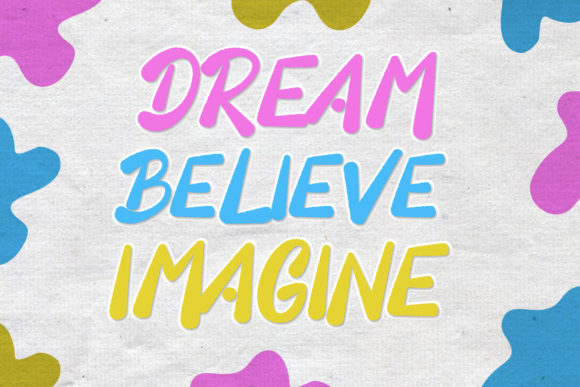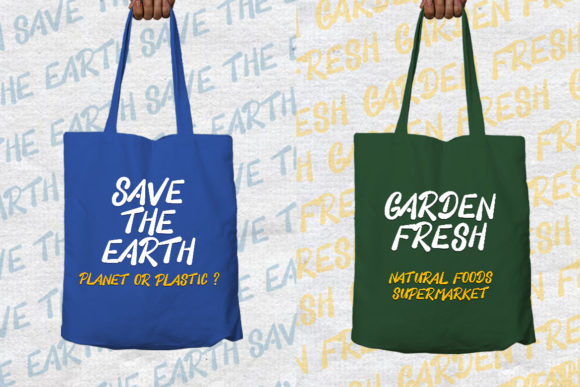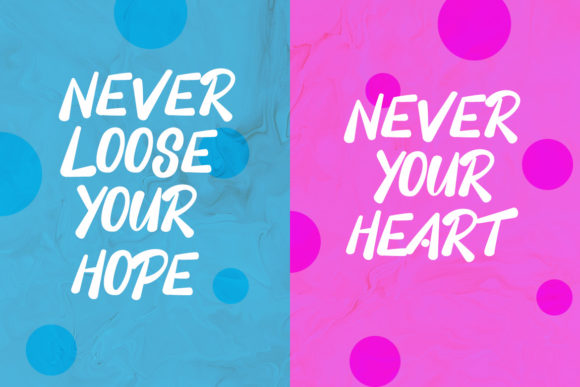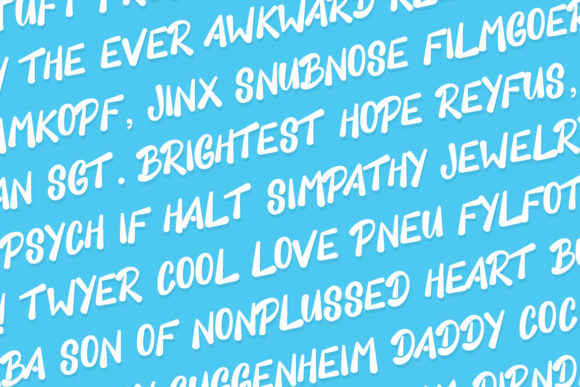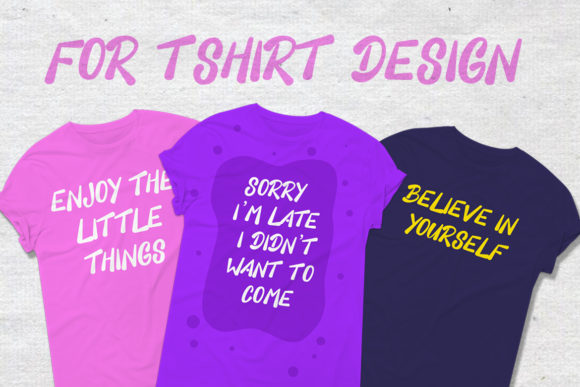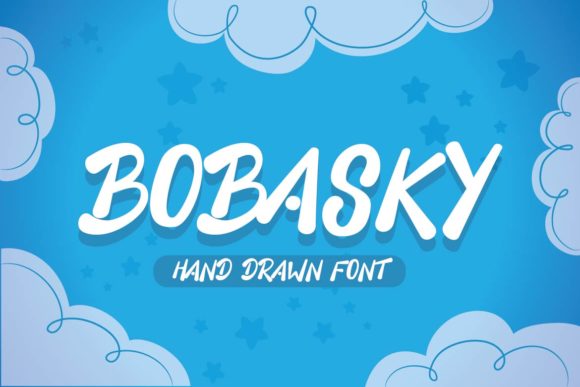
The Ultimate Guide to Bobasky Font: A Fun and Chunky Display Font for Crafters and Designers
I’ll never forget the time I was working on a branding project for a client’s craft business, and I just couldn’t find the right font to match their playful and fun vibe. I scoured the internet, tried out dozens of fonts, but nothing seemed quite right. That was until I stumbled upon Bobasky Font. ✨ It was love at first sight! This fun and chunky display font has since become a staple in my design toolkit, and I’m excited to share its awesomeness with you.
Bobasky Font Review: The Good and the Great
So, what makes Bobasky Font so special? Let’s dive into the good stuff:
- ✅ Perfect for crafty projects: Bobasky Font is a dream for crafters and designers working on projects like Cricut designs, mugs, shirt design, and SVG files.
- ✨ Unique and playful vibe: This font has a one-of-a-kind personality that’s sure to make your designs stand out from the crowd.
- ✅ Easy to read: Despite its chunky and playful nature, Bobasky Font is surprisingly easy to read, even in smaller sizes.
- ✅ Versatile: Use it for branding, packaging, or any other design project that needs a dash of fun and personality.
Of course, no font is perfect, and Bobasky Font has a few minor quirks:
- ⚠️ Limited use in formal designs: Bobasky Font is best suited for informal, playful designs. It might not be the best choice for more formal or professional projects.
- 🤔 Some glyph limitations: While Bobasky Font has a great range of glyphs, it might not have every special character or symbol you need.
- Experiment with OpenType features like ligatures and stylistic alternates to add more flair to your design.
The Story Behind Bobasky Font
Bobasky Font was designed with crafters and designers in mind. Its creator, a passionate typographer, wanted to craft a font that would bring fun and personality to any design project. Inspired by the world of crafting and DIY culture, Bobasky Font was born – a chunky, playful, and versatile font that’s perfect for a wide range of applications.
| Font Name | Bobasky Font |
| Author | Hustletter |
| Is Bobasky Font suitable for body text? | While Bobasky Font is primarily designed for display use, it can be used for short paragraphs of body text. However, for longer texts, a more readable font might be a better choice. |
And that’s a wrap! Bobasky Font is an amazing addition to any designer’s toolkit, offering a unique blend of fun, playfulness, and versatility. Whether you’re working on a Cricut project, branding, or just need a dash of personality in your designs, Bobasky Font is sure to impress.